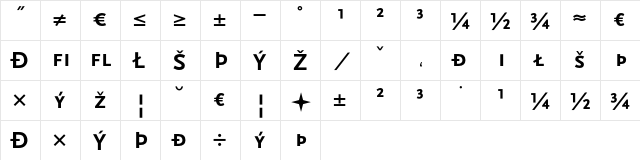
ScalaSans Caps Exp Bold
Design Context for ScalaSans Caps Exp Typeface
ScalaSans Caps Exp is a composed and adaptable typeface that performs quietly and consistently across a wide range of design contexts. Its bold stroke weight gives it real presence on the page.